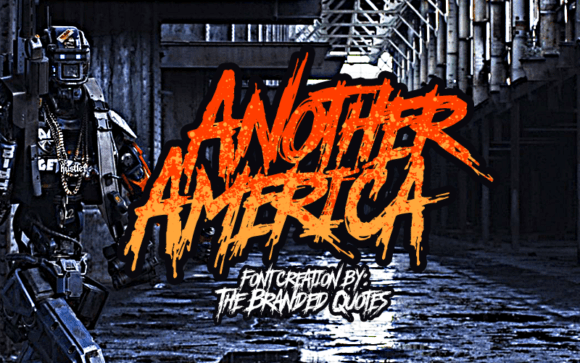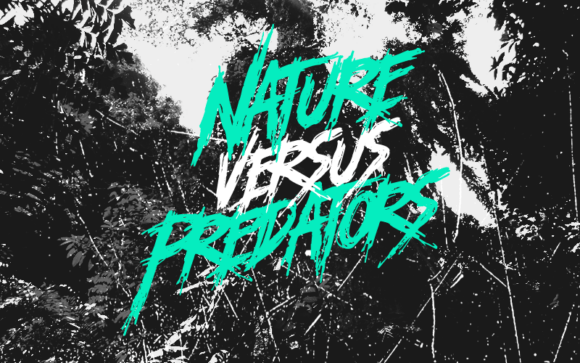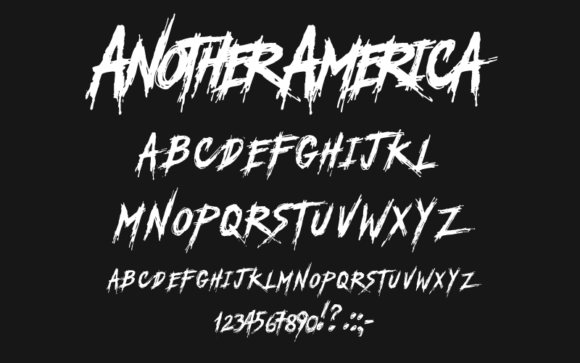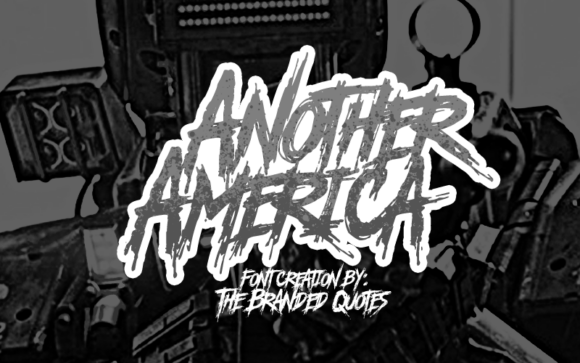
Another America Font
About the Another America Font
From logos to headlines, the Another America Font is the perfect choice for making a lasting impression. Another America, by the looks of it – a revolutionary font. Inspired by Deathcore Music and the Unorthodox side of Photography and Graphic Design.
Its aggressive, high-contrast forms make Another America ideal for headlines, posters, and branding projects needing a bold, rebellious statement. It excels in short impactful phrases, conveying energy and intensity. However, its highly stylized nature makes it unsuitable for body text or UI elements where legibility is paramount. Extended use would severely compromise readability.
This font’s core personality is undeniably bold and rebellious, reflecting its origins. Pairing it with a clean sans-serif like Helvetica Neue for supporting text provides a strong contrast, balancing its raw energy with clarity. Alternatively, a more geometric sans-serif could enhance its modern feel. Avoid pairing with script fonts, as this would dilute its unique character.
For brands targeting a younger demographic interested in music, streetwear, or extreme sports, Another America offers a powerful visual identity. Its unconventional design signals a disruptive and nonconformist spirit.
Another America Font Usage Examples
Another America Font Example